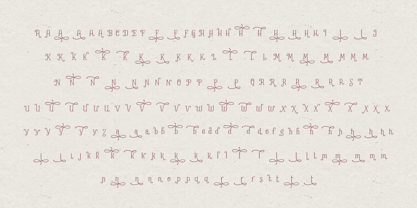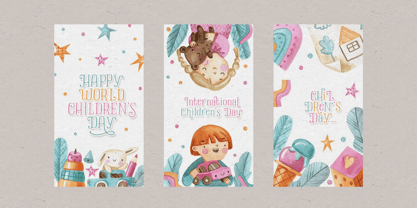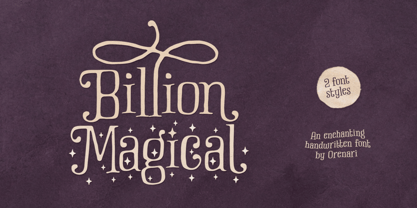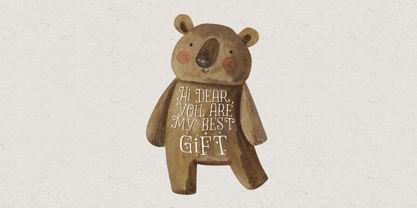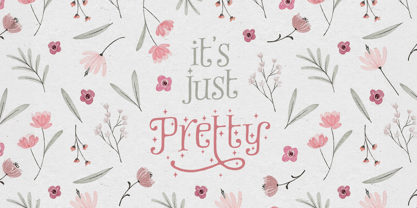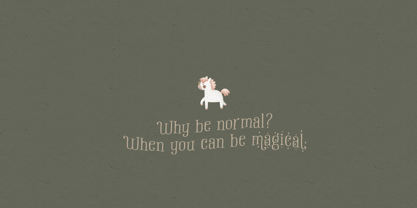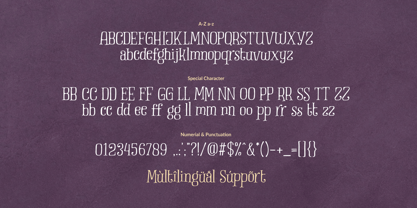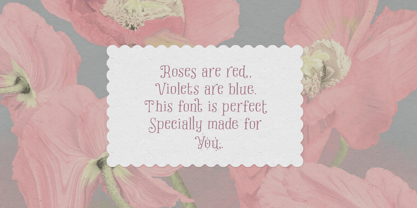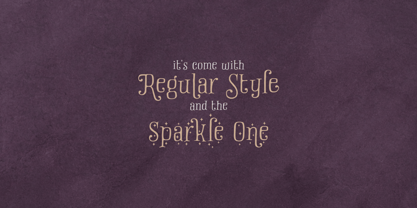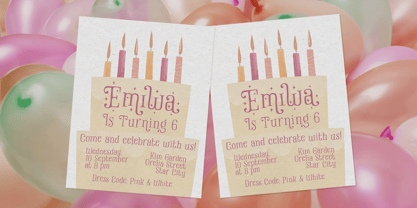
Billion Magical
by Orenari
The Billion Magical Font Family was designed by Lia Wijayanti and published by Orenari. Billion Magical contains 1 styles. More about this family
Billion Magical is a beautifully crafted handwritten font that radiates charm, elegance, and a touch of enchantment. Designed with smooth, flowing strokes and delicate curves, this font captures the essence of creativity and imagination, making every word feel special and expressive.
What sets Billion Magical apart is its wide variety of alternate characters, giving you the freedom to create dynamic and unique typography with every use. Whether you're designing whimsical book covers, elegant invitations, artistic branding, or fantasy-inspired projects, this font adapts effortlessly to your vision, adding an extra layer of magic and sophistication.
With its carefully designed details, Billion Magical brings warmth and personality to your text, making it perfect for those who want their designs to feel personal, artistic, and full of life. Let your creativity flow and bring your ideas to life with Billion Magical—a font that turns words into art and stories into unforgettable experiences. ✨